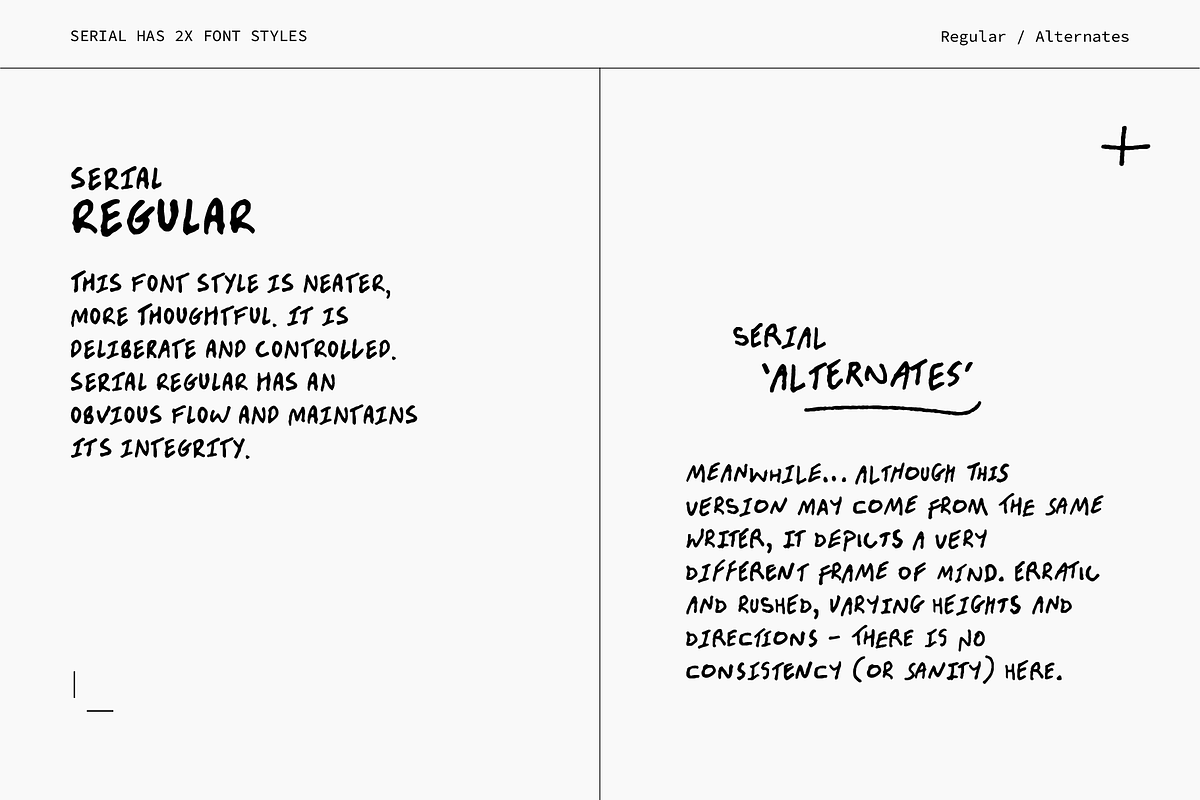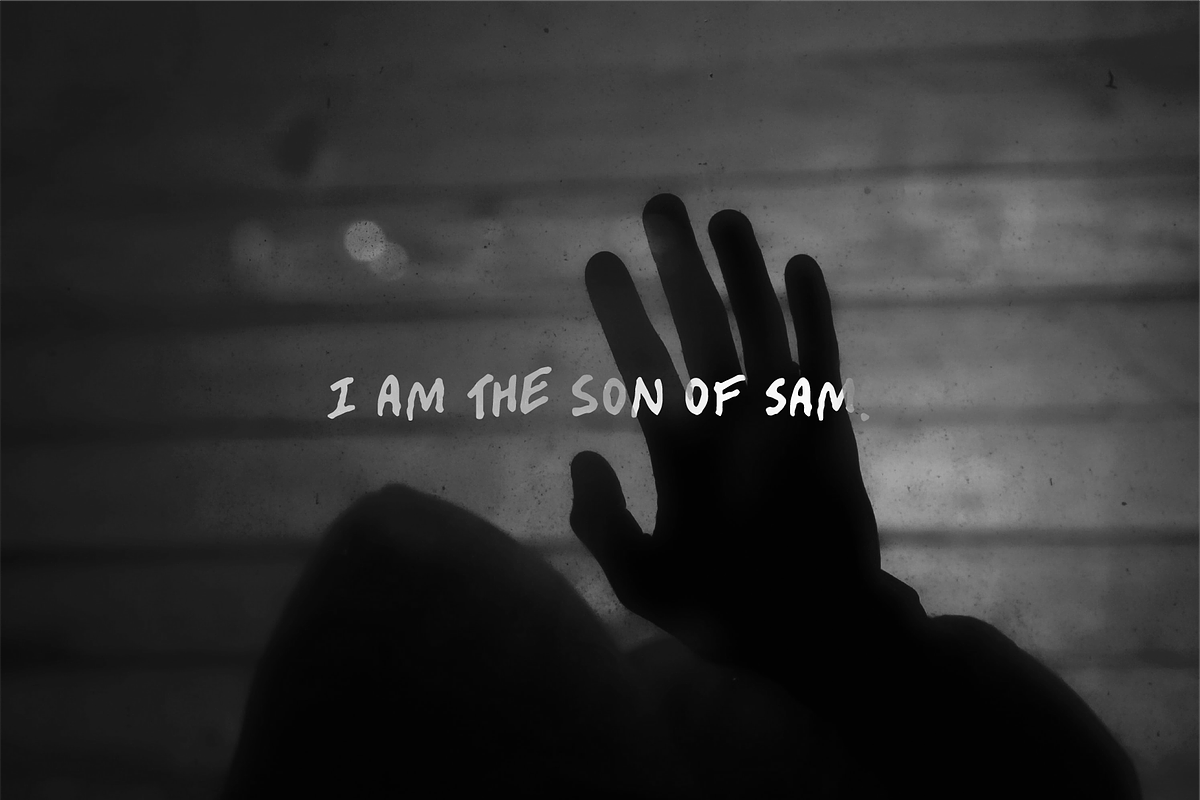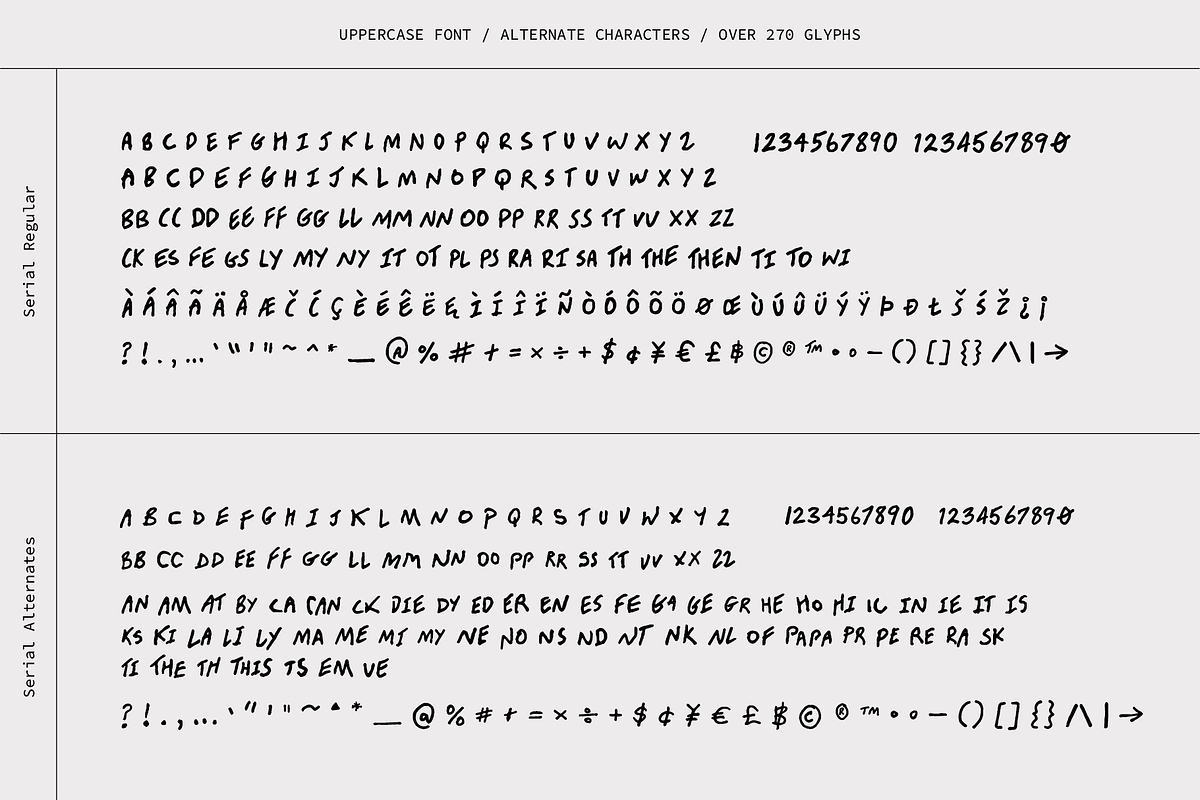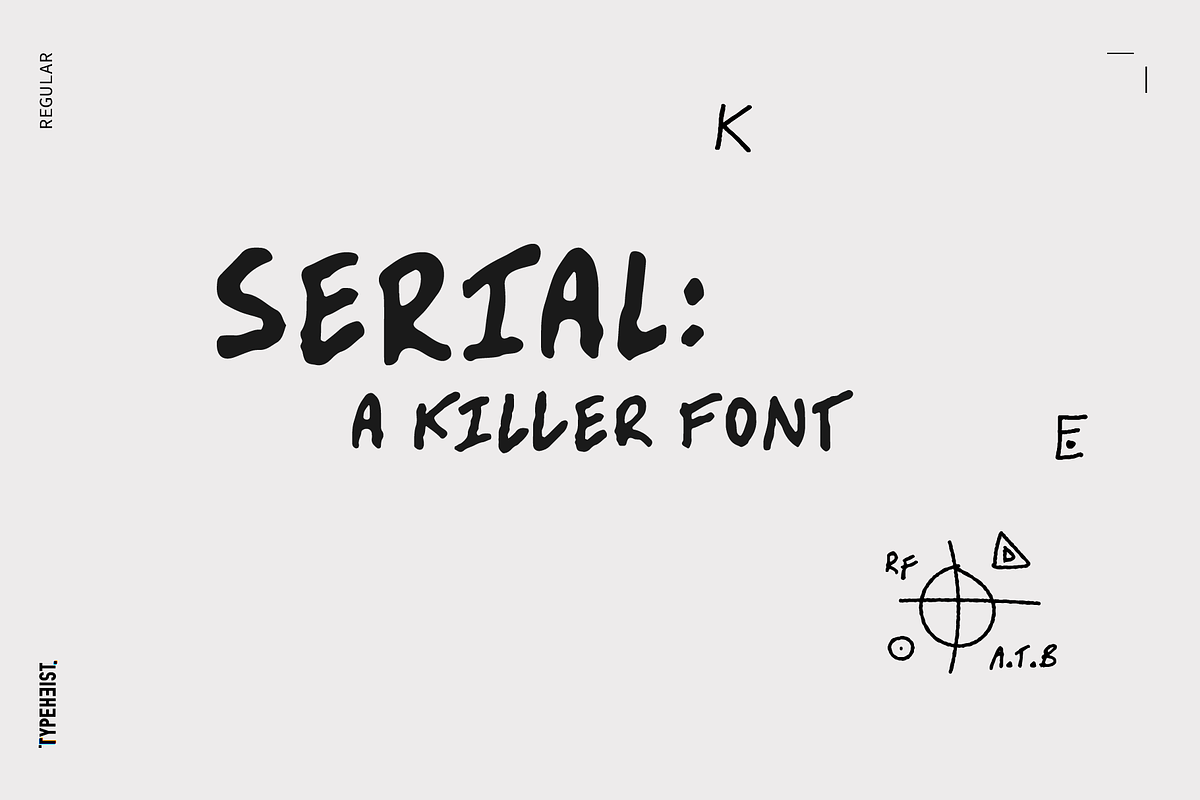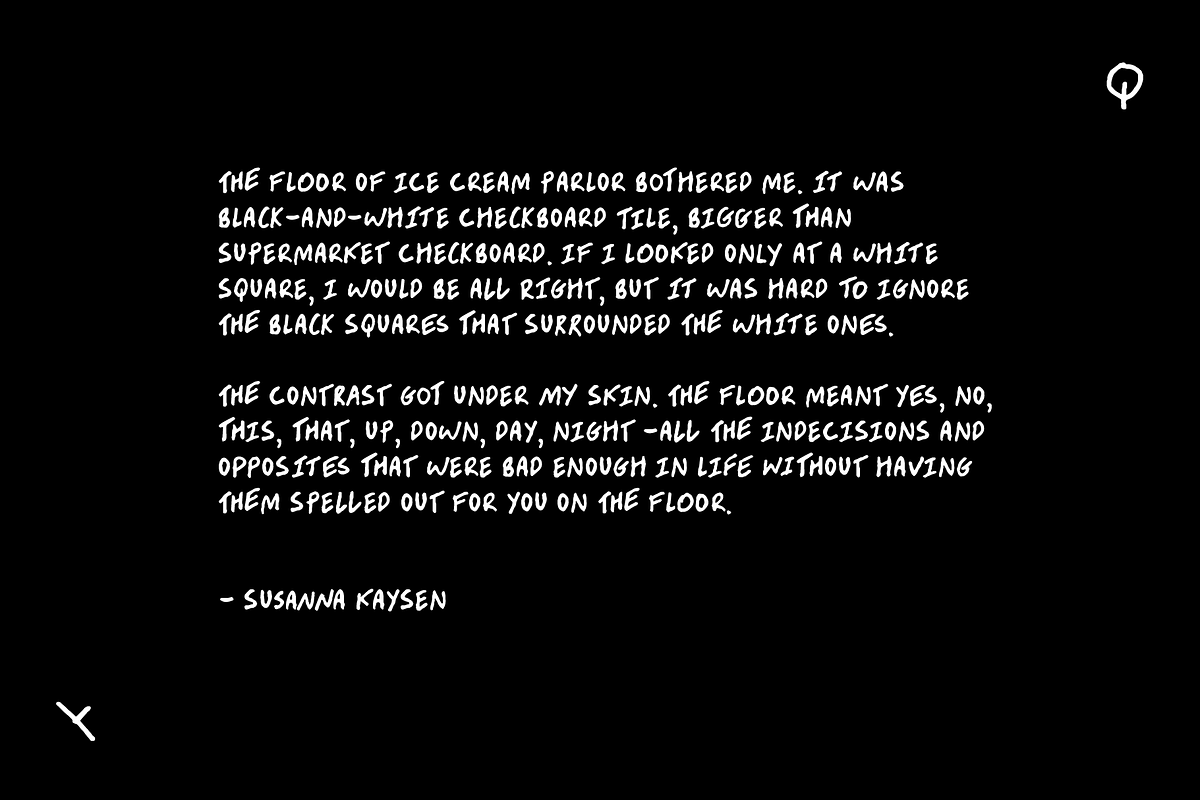
Serial: A Killer Handwriting Font
Serial: a killer font takes influence from the Son of Sam letters. Depicting an unstable mind and ill motives, this font is as erratic and discomforting as its author.
Containing two similar but discernible font styles, you can mix and match to create your own story. Serial Regular is neater and more thoughtful. It is controlled and has an obvious flow. Serial Alternates illustrates a very different frame of mind - it is turbulent and rushed with little to no consistency.
Serial Regular contains a secondary A-Z set, and a latin character set. Serial Alternates contains over 60+ ligatures (which gives it its natural handwriting style).
- Serial Regular (base set + alternate glyphs + accented characters)
- Serial Alternates (base set + over 60+ glyphs)
- 110+ ligatures
- Standard english characters + extended Latin accented character set in Serial Regular (see images)